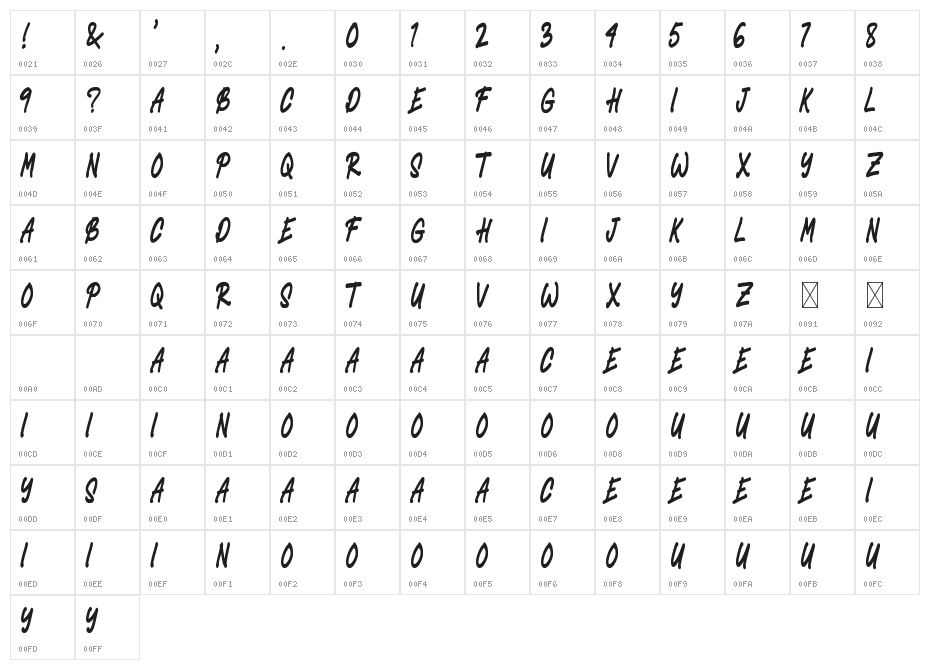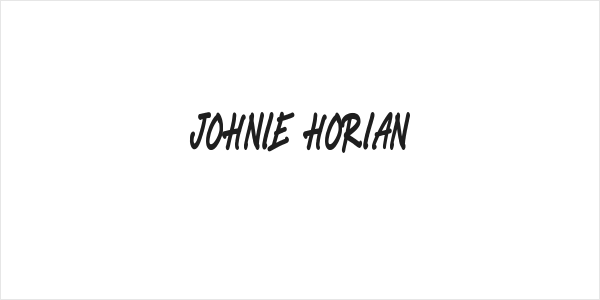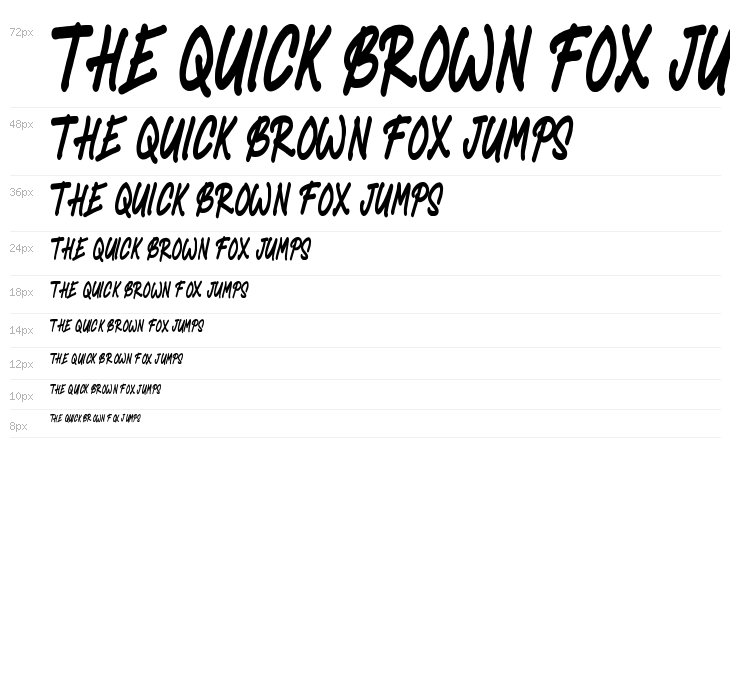
Johnie Horian Font
Johnie Horian Description
This font features a bold, handwritten style with a dynamic and energetic appearance. The letters are slightly slanted, giving it a casual and informal feel. The strokes are thick and consistent, providing a strong visual impact. The uppercase and lowercase letters maintain a cohesive look, with rounded edges and smooth curves. Numbers and special characters are designed to match the overall style, ensuring uniformity across all elements. This font is ideal for projects that require a personal touch or a sense of spontaneity.
| Proposed Projects | Ideal for branding, social media graphics, posters, and invitations where a personal and energetic touch is desired. |